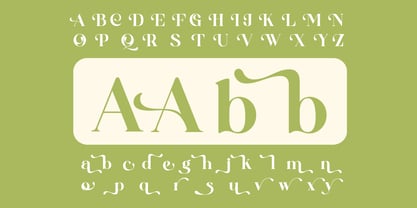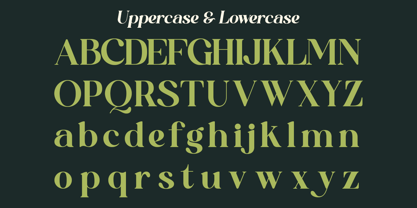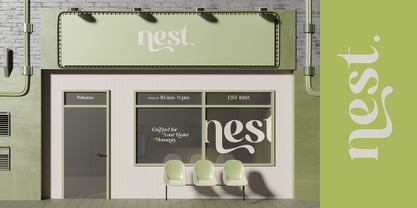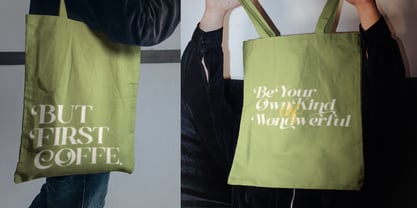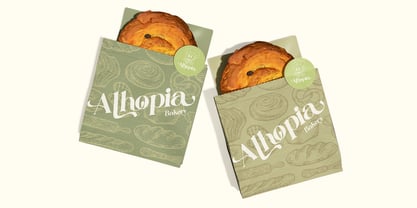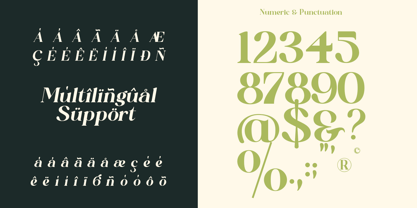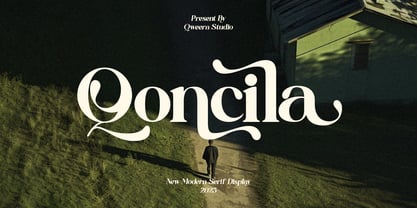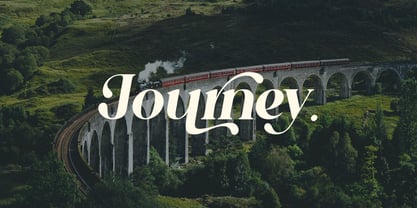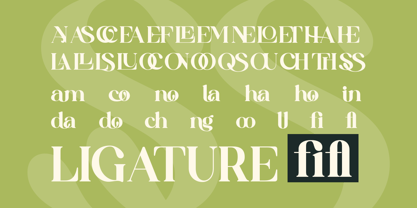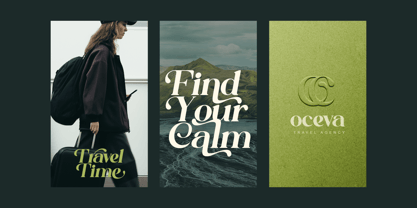
Qoncila
The Qoncila Font Family was designed by Idhham Cholid Rikzano Yahya and published by Qweera Studio. Qoncila contains 2 styles and family package options. More about this family
Qoncila Font is a modern luxury swash serif typeface featuring bold contrast and expressive curves. Designed for high-impact branding and sophisticated editorial layouts, it delivers dramatic elegance with clean structure. Perfect for logos, fashion campaigns, packaging, boutique branding, and creative poster design, Qoncila brings premium character and strong visual identity to any project. Its swash alternates and refined ligatures add flexibility and personality while maintaining professional balance. Features Swash alternates Ligatures Multilingual support Commercial license included Perfect For Logo design, fashion branding, editorial layout, magazine covers, luxury packaging, boutique identity, statement typography.